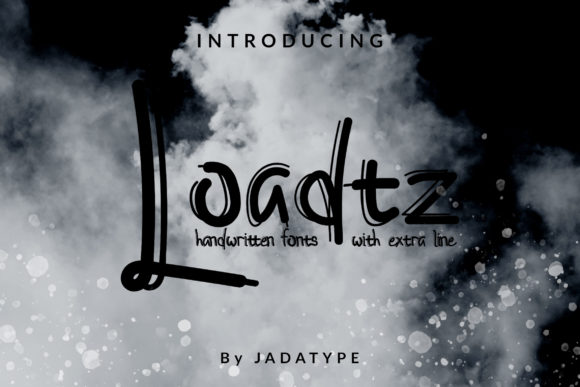
Introducing Loadtz Font - A Typographic Masterpiece for Bold and Unforgettable Designs!
Prepare to be mesmerized by Loadtz Font, a double-lined display font that exudes an aura of power and visual impact like no other. This masterpiece from jadatype is not just a font; it's a design revolution waiting to transform your creative projects into captivating spectacles.
With Loadtz Font, you hold the key to unlocking a world of bold and unforgettable designs. Its meticulously crafted double-lined structure commands attention, ensuring your words and messages leap off the screen, leaving an indelible mark on your audience. Whether you're a seasoned designer, a creative entrepreneur, or simply someone with a passion for typography, Loadtz Font is your passport to design greatness.
Step into the realm of infinite creative possibilities with Loadtz Font. Its robust character set, spanning uppercase and lowercase letters, numerals, and an array of symbols, empowers you to craft designs that speak volumes. Unleash your imagination and let Loadtz Font be your muse as you create logos that command respect, headlines that demand attention, and social media graphics that ignite engagement.
But Loadtz Font's allure extends beyond its visual prowess. It's a font engineered for versatility, effortlessly adapting to a symphony of design styles. From the sleek and modern to the retro and vintage, Loadtz Font seamlessly blends in, adding a touch of sophistication and timeless charm to every project it graces.
Experience the transformative power of Loadtz Font today and elevate your designs to new heights. Let your creativity soar as you witness the magic of your words and visuals come to life with an intensity and impact that will leave your audience spellbound.